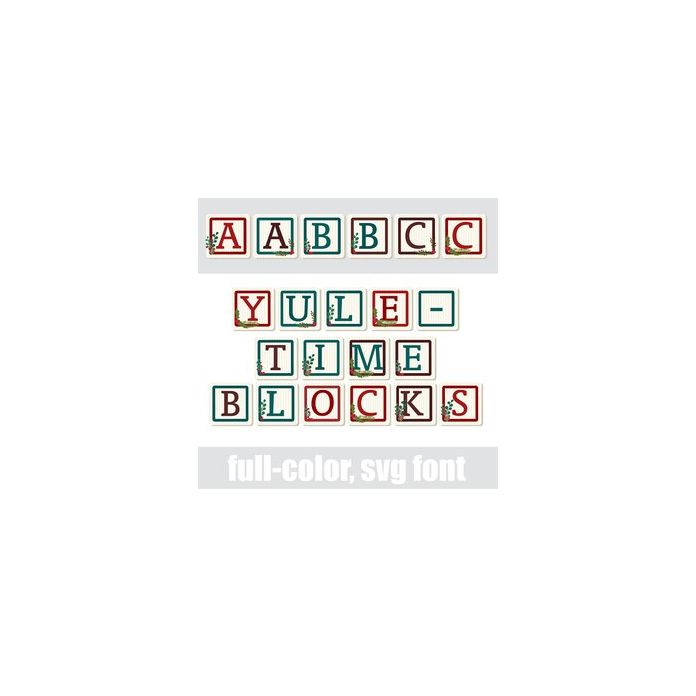
This full-color font features blocks with serif lettering and Christmas florals. There is an alt case w/ additional colors you can access through your system or Silhouette's glyph map.